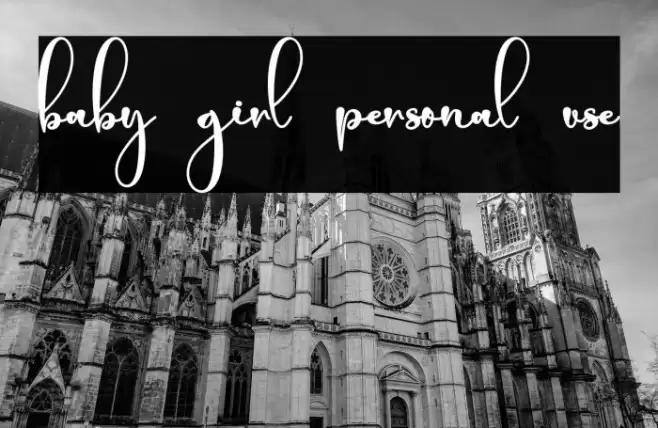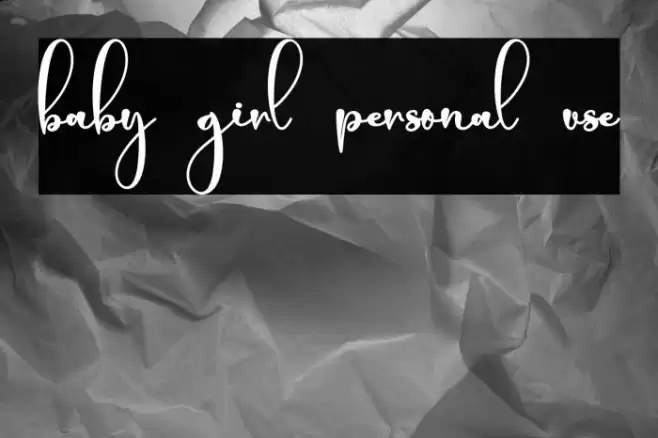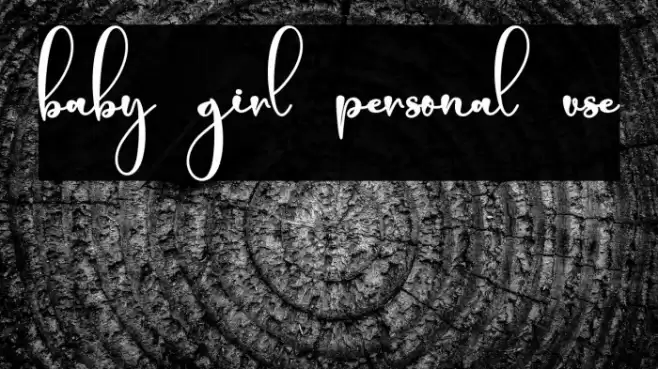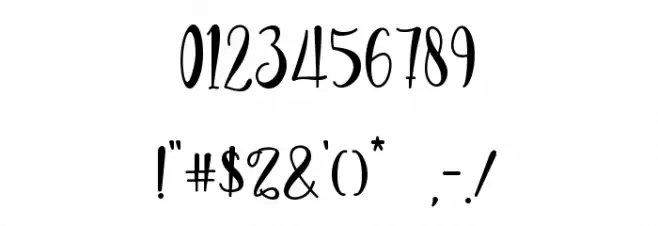
baby girl personal use Font
baby girl personal use Description
This font features a playful and elegant script style, characterized by its flowing, cursive letterforms. The uppercase letters are tall and slender, with exaggerated loops and swirls that add a whimsical touch. The lowercase letters maintain a consistent flow, with smooth connections and a slight slant, enhancing the handwritten feel. Numbers and special characters are designed to match the overall aesthetic, with similar curves and embellishments. The font exudes a sense of charm and sophistication, making it suitable for various creative applications.
A playful and elegant script font with flowing, cursive letterforms from Regular fonts.
- Proposed Projects: Ideal for wedding invitations, greeting cards, branding, and social media graphics.
- Use Case: Logos, Invitations, Social Media